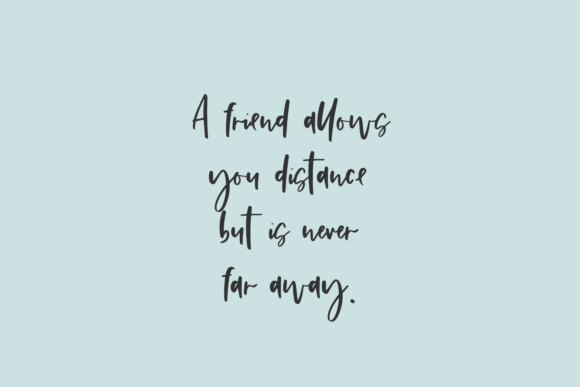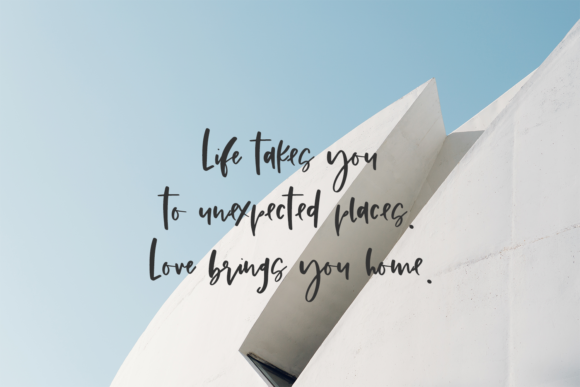
Promise Script Font
db-ku.com - Script & Handwritten -- Promise Script is a sweet and friendly handwritten font. Its natural and unique style makes it incredibly fitting to a large pool of designs. This font is PUA encoded which means you can access all of the glyphs and swashes with ease!